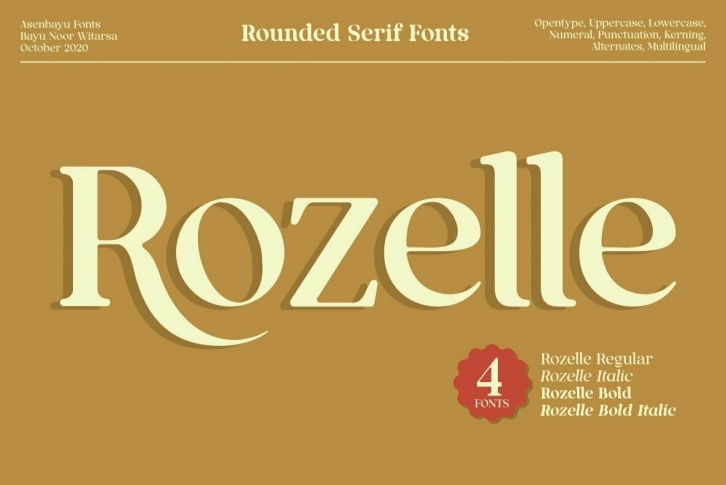
Rozelle Fonts are serif fonts with rounded edges. These fonts are formed as a unique multipurpose font, you can use them in vintage, retro, and modern designs. These fonts are perfect for a variety of projects, such as branding, poster displays, logo designs, magazine covers, and more. These fonts are perfect for you who need unique serif fonts!
Rozelle fonts feature opentype, kerning, and alternates packed in 4 fonts: Regular, Italic, Bold, Bold-italic. Rozelle fonts include uppercase letters, lowercase letters, numeral, punctuation and multilingual support.